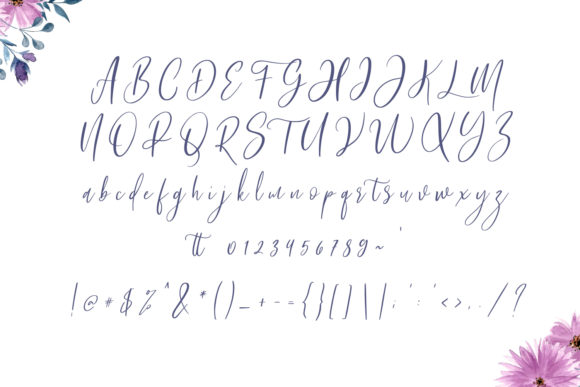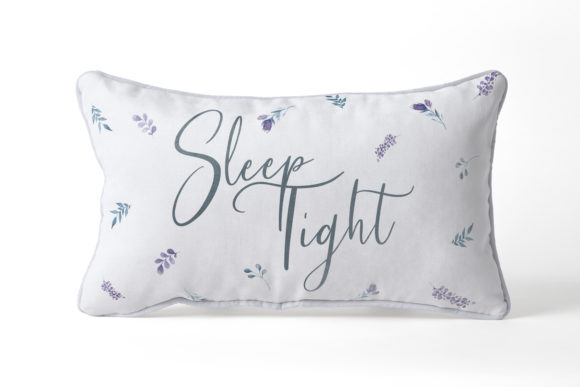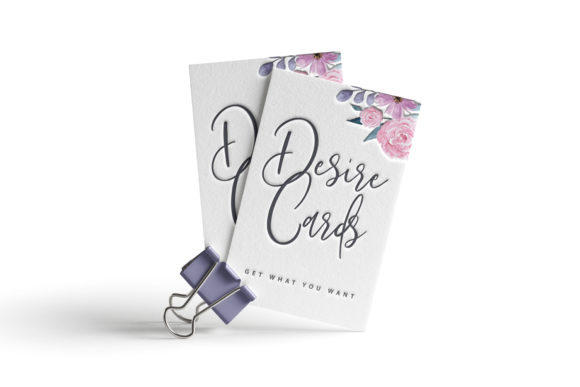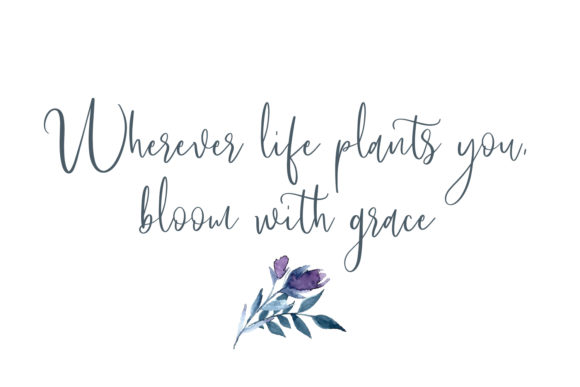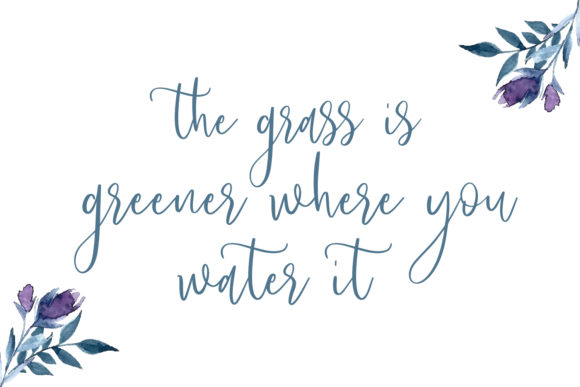
Bashira Font: A Romantic Handwritten Script Font
Are you a designer or crafter looking for a font that exudes elegance and sophistication? Look no further than the Bashira font, a romantic handwritten script font that is sure to capture your heart. With its delicate curves and pretty flourishes, Bashira is the perfect choice for a variety of design projects, from wedding invitations to branding and packaging.
What is Bashira Font?
Bashira is a beautifully crafted handwritten script font that features delicate curves and ornate flourishes. Its romantic and feminine design makes it perfect for designers and crafters who want to add a touch of elegance to their projects. The font is highly legible and versatile, making it suitable for a wide range of applications, from digital designs to print materials.
Key Features of Bashira Font
- Delicate Curves: Bashira font features delicate curves that give it a soft and romantic feel.
- Pretty Flourishes: The font includes pretty flourishes that add a touch of elegance to any design.
- Handwritten Script: Bashira is a handwritten script font that mimics the look of handwritten writing.
- Highly Legible: The font is highly legible, making it perfect for body text and headings.
- Versatile: Bashira is a versatile font that can be used for a wide range of design projects.
Uses of Bashira Font
Bashira font is perfect for a variety of design projects, including:
- Wedding Invitations: The romantic and elegant design of Bashira makes it perfect for wedding invitations, save-the-date cards, and other wedding-related designs.
- Branding and Packaging: The font’s versatility and legibility make it suitable for branding and packaging designs, including logos, labels, and packaging materials.
- Digital Designs: Bashira can be used for digital designs, including social media graphics, blog posts, and website headers.
- Print Materials: The font is also suitable for print materials, including brochures, flyers, and posters.
Why Choose Bashira Font?
There are many reasons why designers and crafters choose Bashira font for their projects. Here are a few:
- Unique Design: Bashira has a unique and distinctive design that sets it apart from other fonts.
- Elegant and Sophisticated: The font’s elegant and sophisticated design makes it perfect for high-end designs.
- Easy to Read: Bashira is highly legible, making it easy to read and understand.
- Versatile: The font is versatile and can be used for a wide range of design projects.
Tips for Using Bashira Font
Here are a few tips for using Bashira font in your designs:
- Use it for Headings: Bashira is perfect for headings and titles, where its elegant design can really shine.
- Pair it with Other Fonts: The font can be paired with other fonts to create a unique and interesting design.
- Experiment with Colors: Bashira looks great in a variety of colors, so don’t be afraid to experiment and find the perfect color for your design.
In conclusion, Bashira font is a romantic handwritten script font that is perfect for designers and crafters who want to add a touch of elegance to their projects. With its delicate curves and pretty flourishes, Bashira is sure to capture your heart. Its versatility, legibility, and unique design make it a great choice for a wide range of design projects, from wedding invitations to branding and packaging. So why not fall in love with Bashira font and make it a part of your design toolkit?